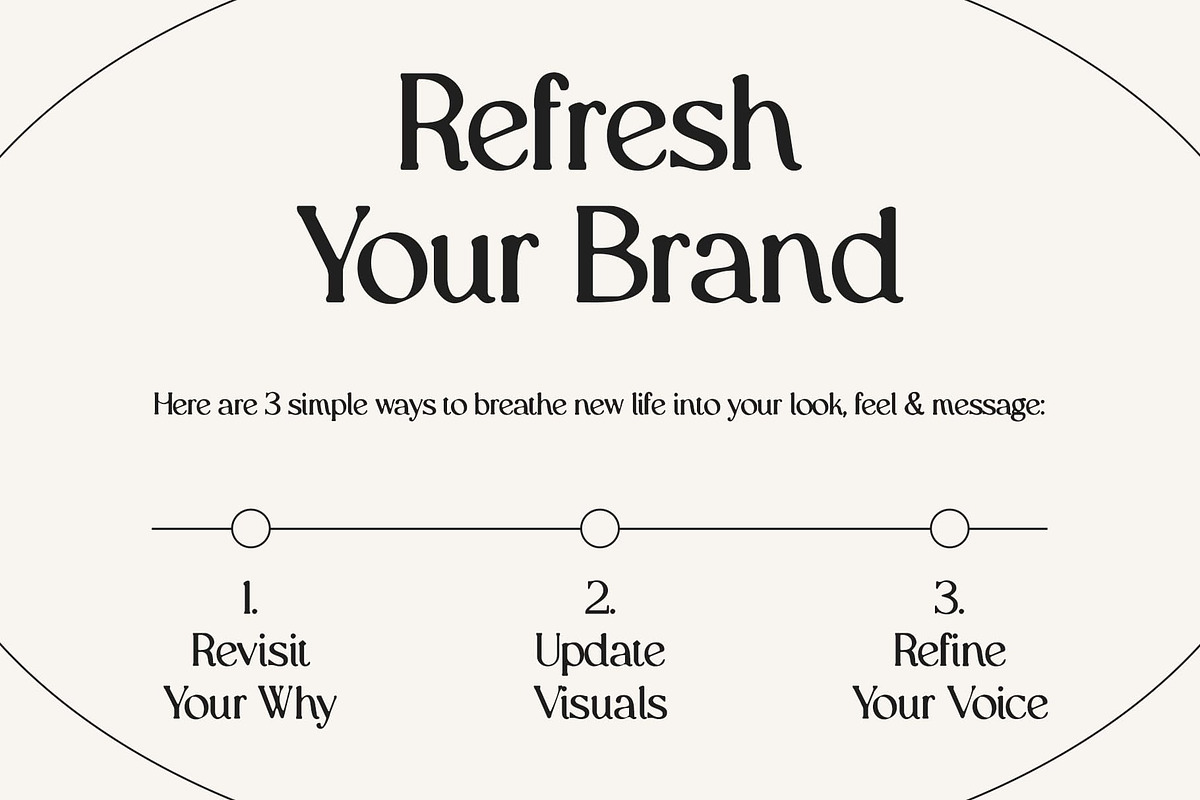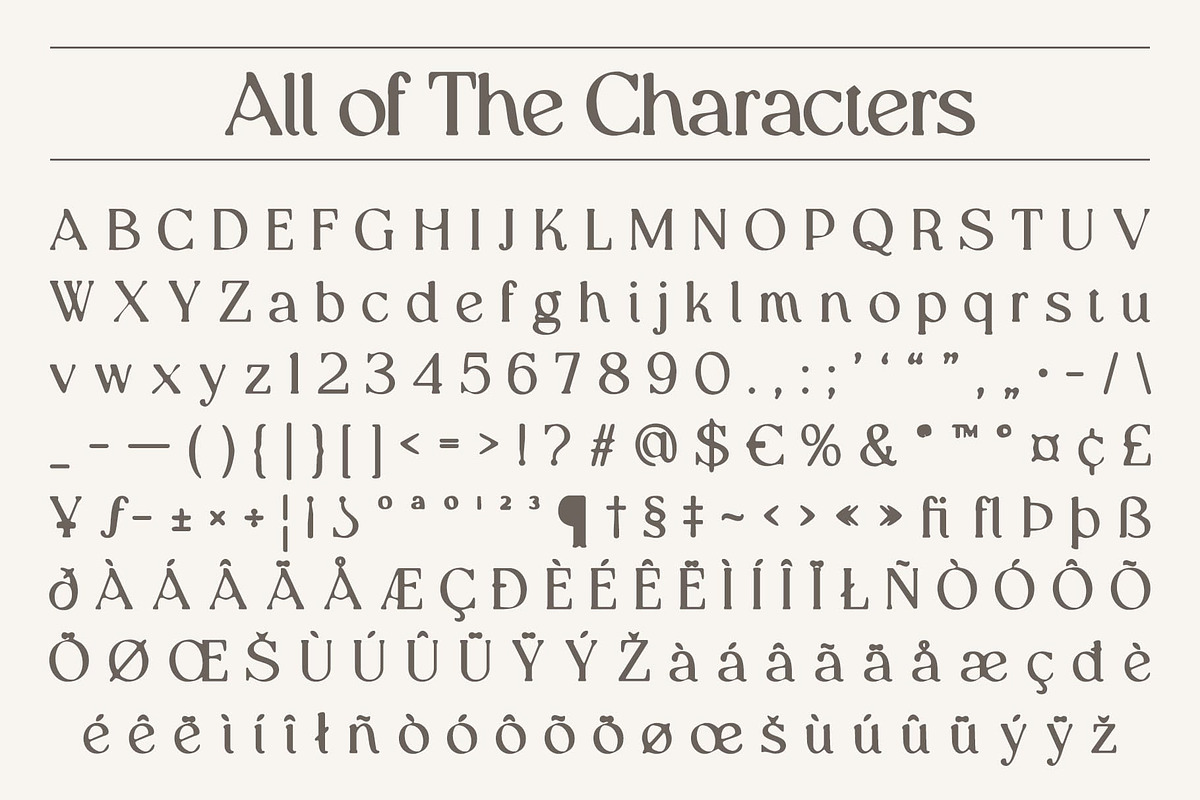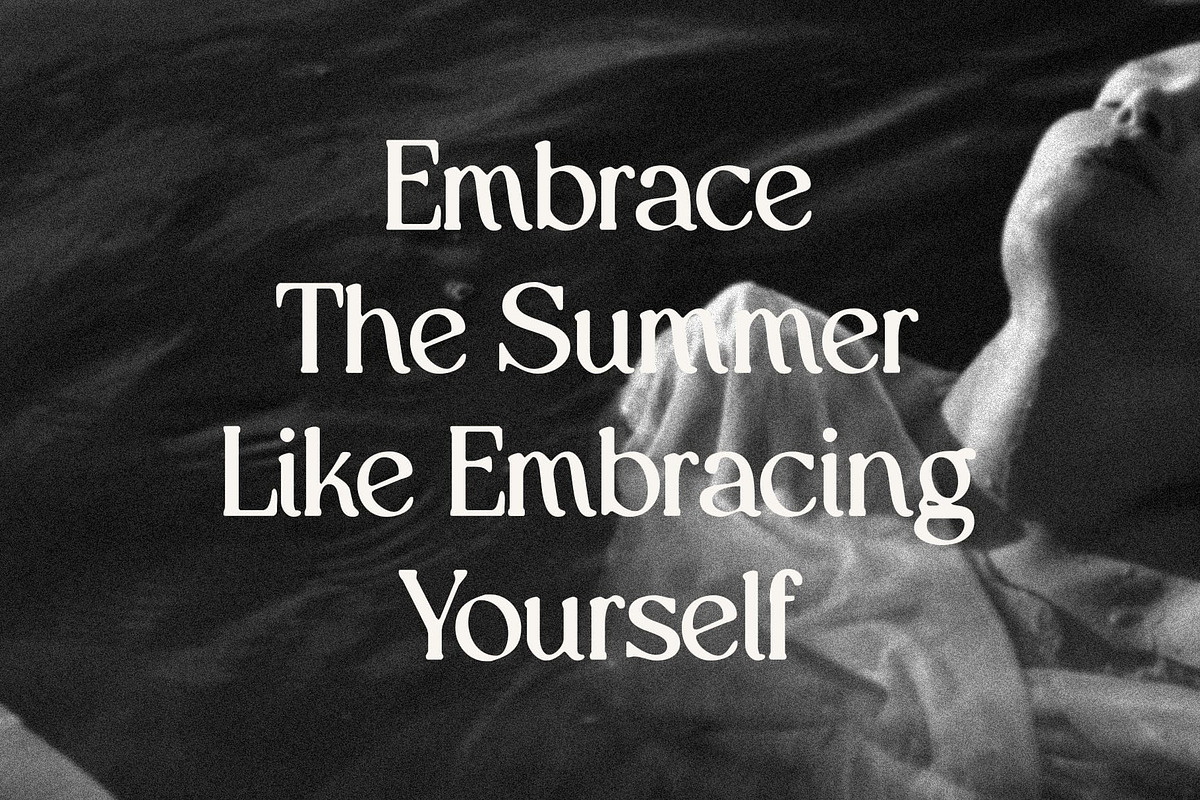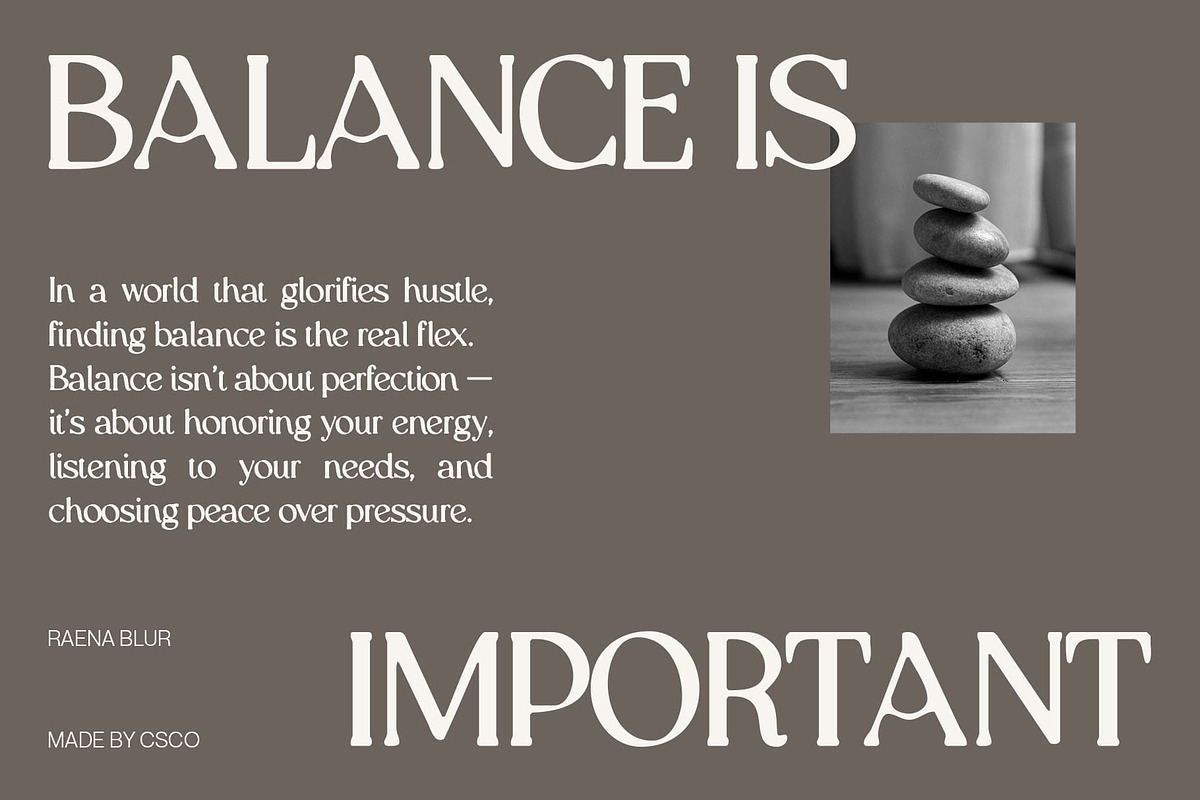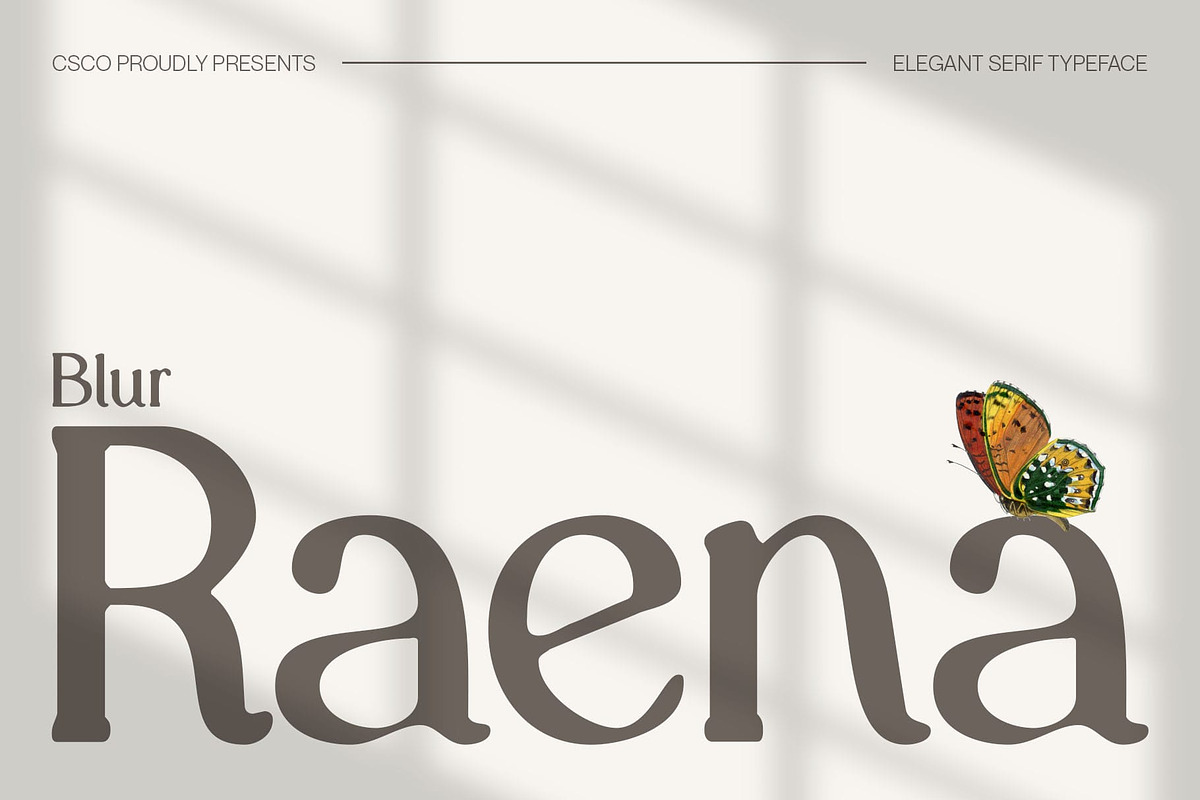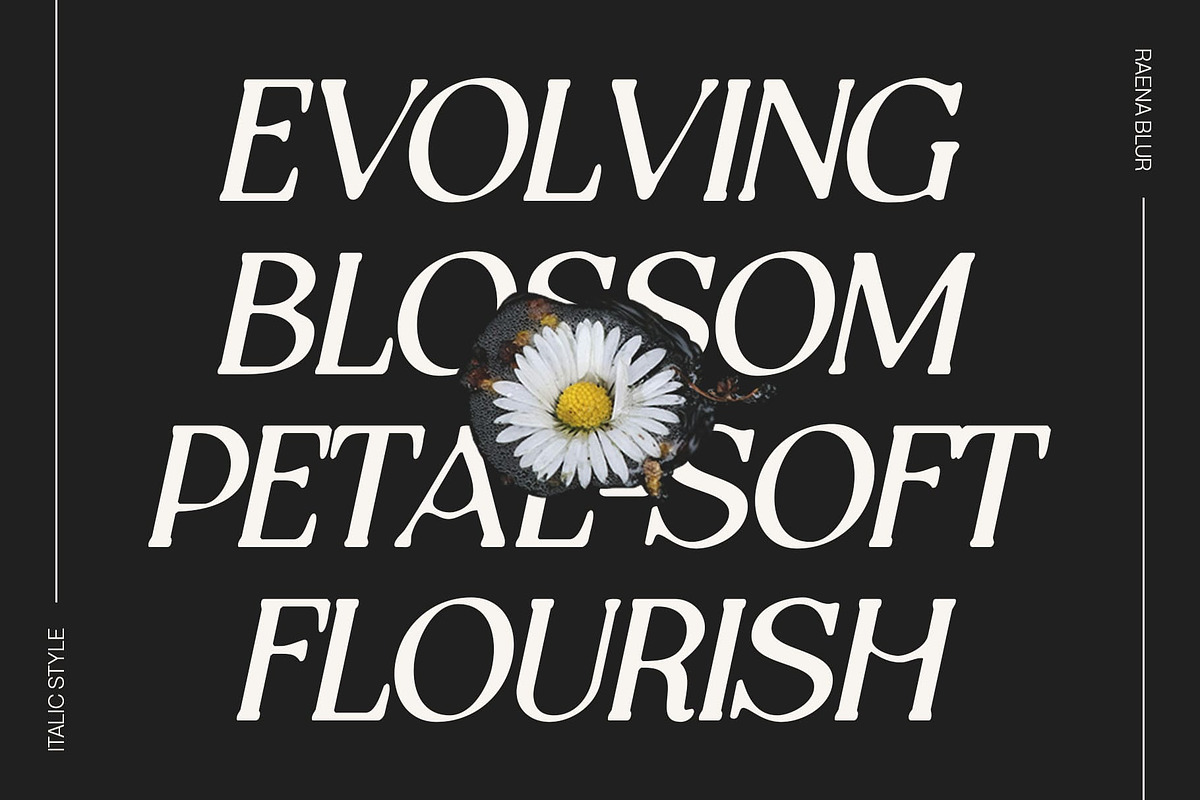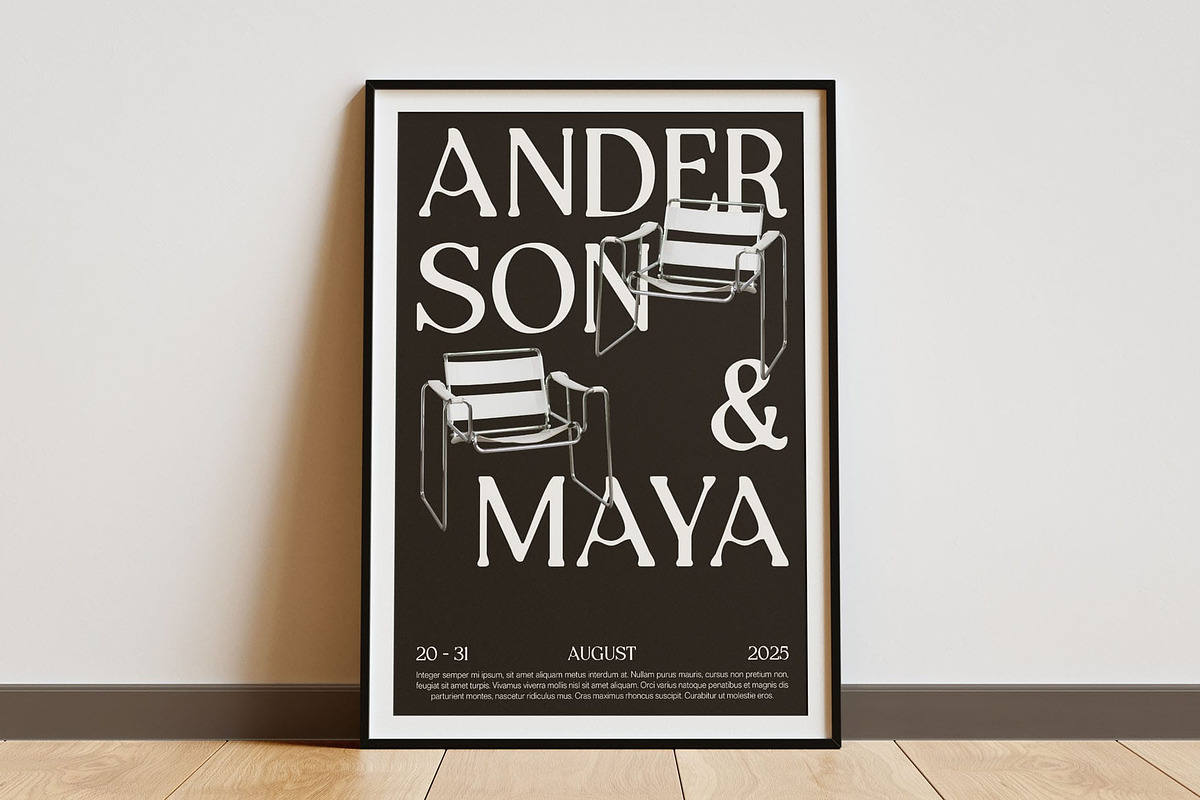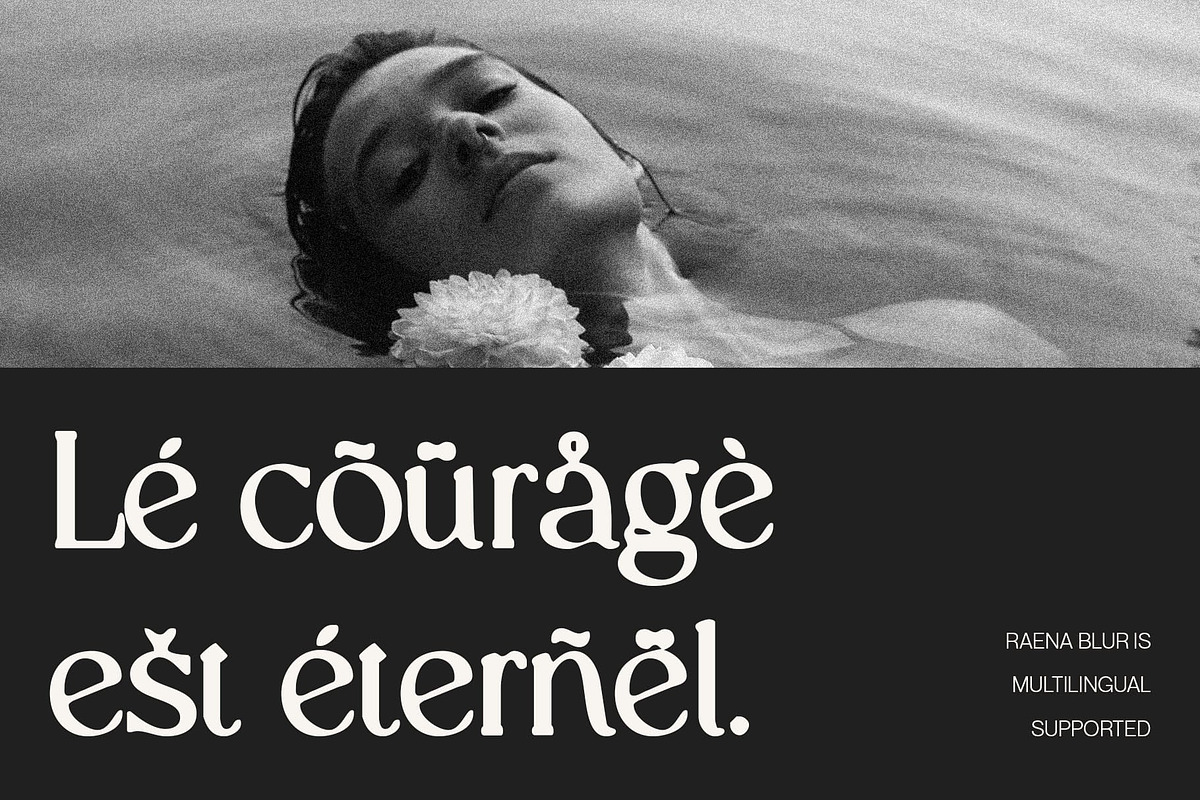
Raena Blur
Raena Blur Font – Elegant Modern Serif with Artistic Blur Effect
Sophisticated Design with Classic Influences Raena Blur is a modern serif font that features a slim and clean design, combining contemporary minimalism with delicate serif details. This blend creates a refined and elegant appearance, making it a perfect choice for projects that require a timeless yet fresh look.
Unique Blur Effect for Depth and Softness What sets Raena Blur apart is its subtle blur effect, which introduces a soft, artistic dimension to each letterform. This effect adds a sense of mystery and smoothness, gently diffusing the edges to create a captivating visual texture that elevates the overall aesthetic.
Luxurious and Captivating Presence With its sleek lines and graceful serifs softened by the blur, Raena Blur exudes an air of luxury and sophistication. It’s designed to draw attention without overwhelming, making it ideal for brands and designs that want to communicate exclusivity and refined beauty.
Perfect for High-End and Creative Applications Raena Blur is highly versatile and works beautifully in a variety of contexts, including high-end branding, elegant invitations, fashion editorials, and upscale packaging. Its distinctive combination of classic serif features and modern blur styling makes it a standout choice for creative professionals seeking a unique, stylish, and contemporary font.
- Raena Blur Regular
- Raena Blur Italic